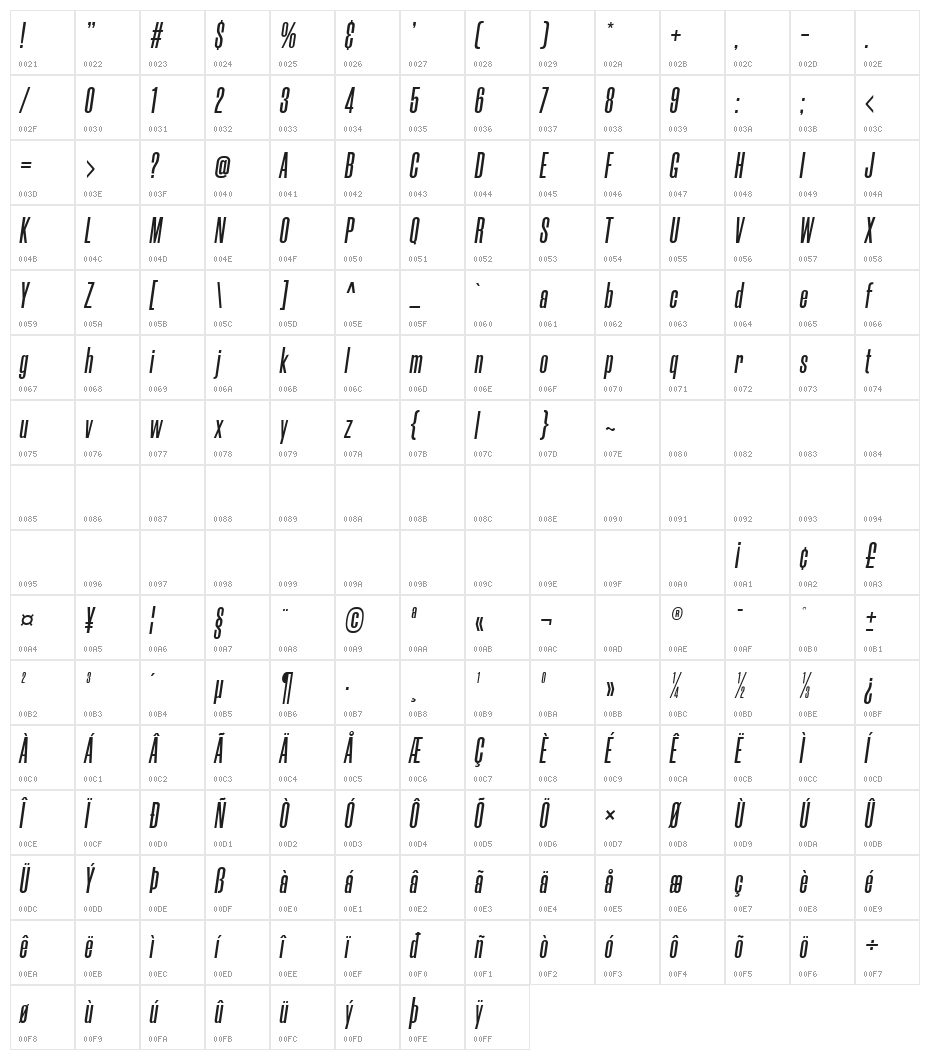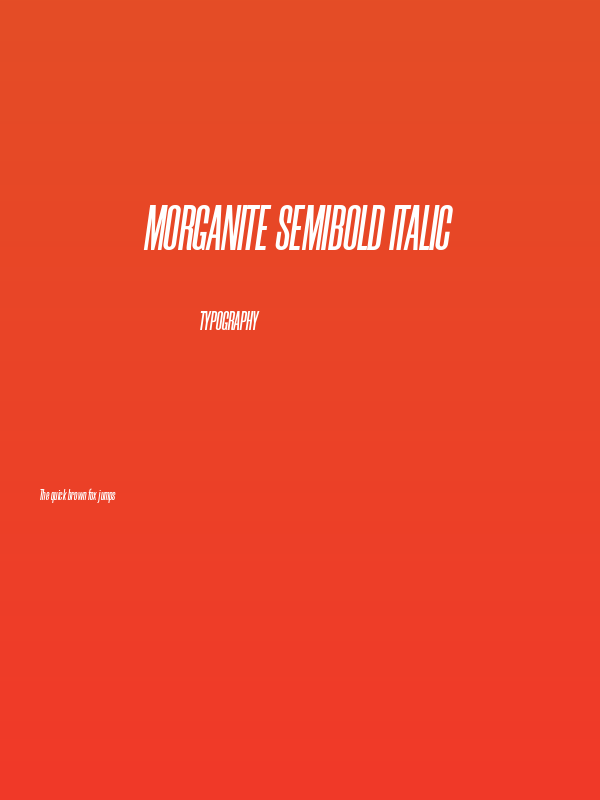
Morganite SemiBold Italic Font
Morganite SemiBold Italic Description
This font features a sleek and modern design with a semi-bold weight, offering a strong presence while maintaining elegance. The italic style adds a dynamic and forward-leaning appearance, making it suitable for contemporary projects. The characters are tall and narrow, contributing to a condensed width that enhances readability in tight spaces. The font exhibits medium contrast in stroke thickness, providing a balanced look that is neither too stark nor too subtle. Its overall style is modern and versatile, making it ideal for a variety of design applications.
| Use Case | Headlines, Branding, Advertising |
| Proposed Projects | Ideal for branding, advertising, headlines, and modern web design. |